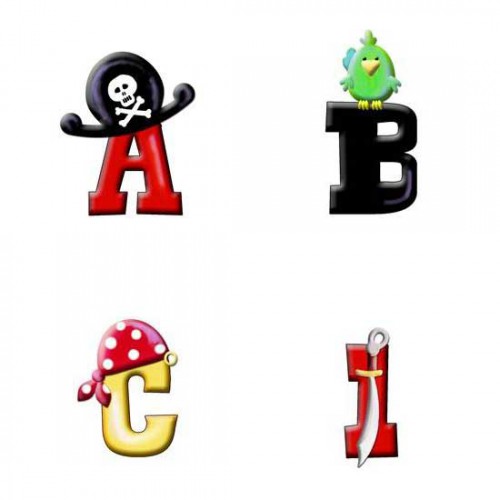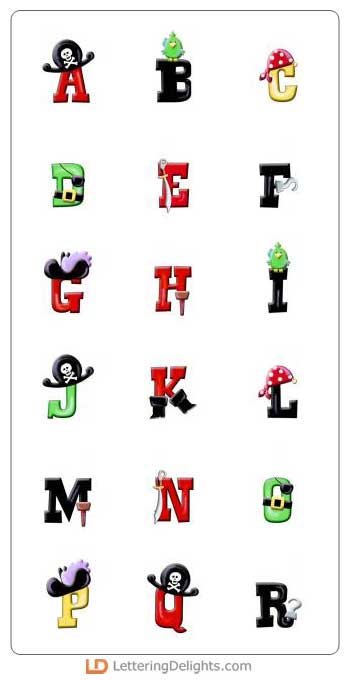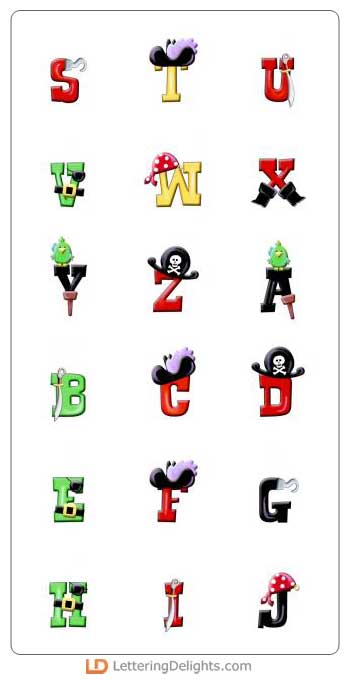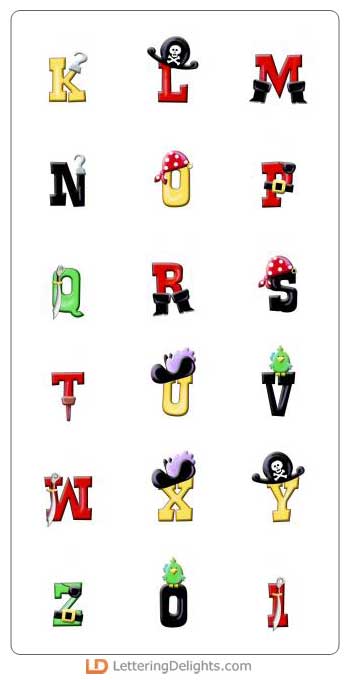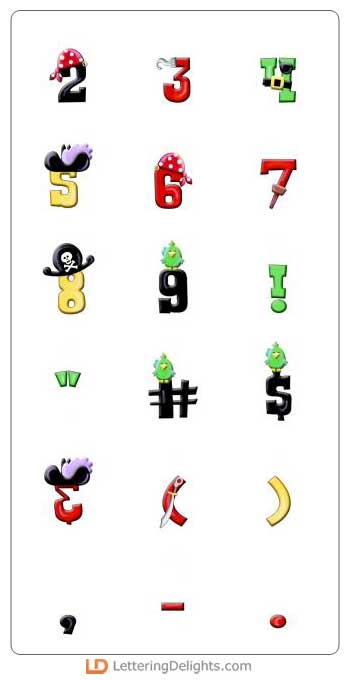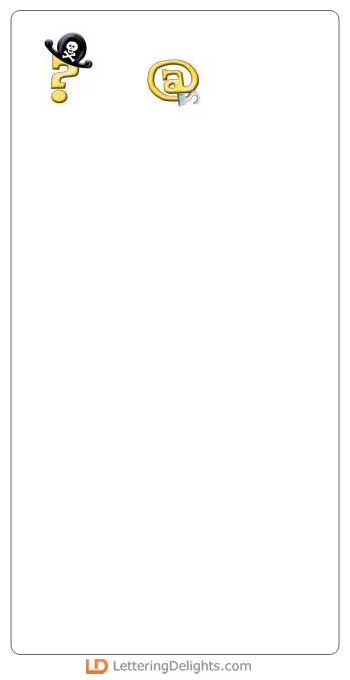
Pirate paraphernalia adorn the letters of this alphabet. Dig up creative scrapbook pages, newsletters, signs, greeting cards, and invitations for your pirate-themed activity. It will make you want to say arrrrgh!